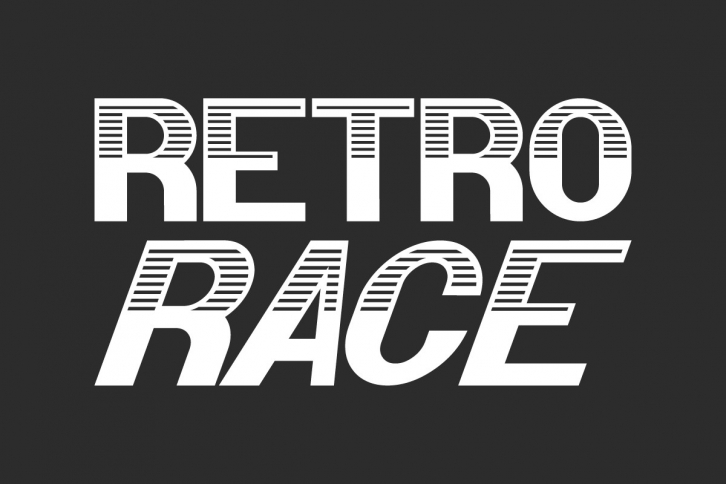
Retro Race is a bold and cool lettered display font. Whether you’re looking for fonts for Instagram or calligraphy scripts for DIY projects, this font will turn any creative idea into a true piece of art!